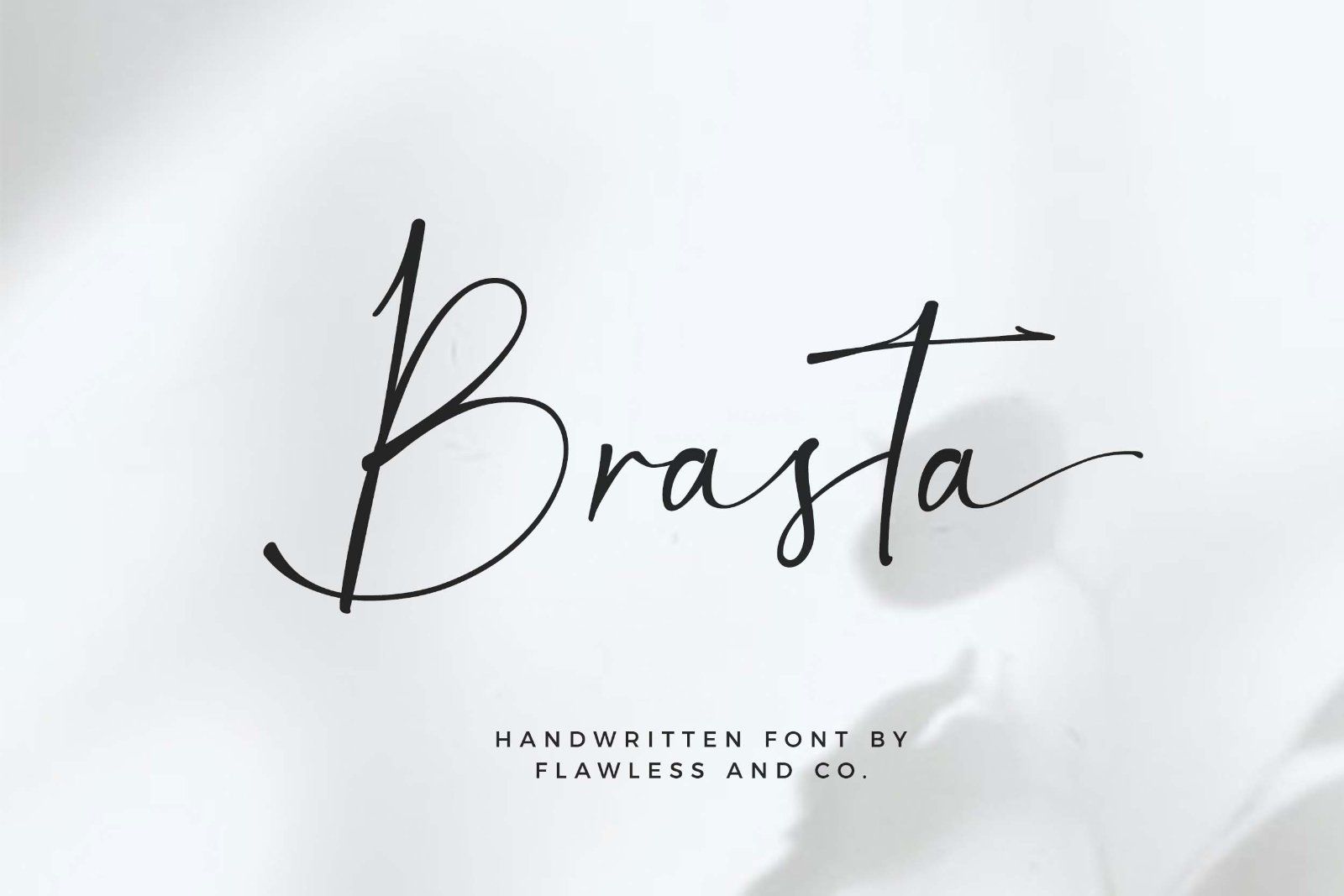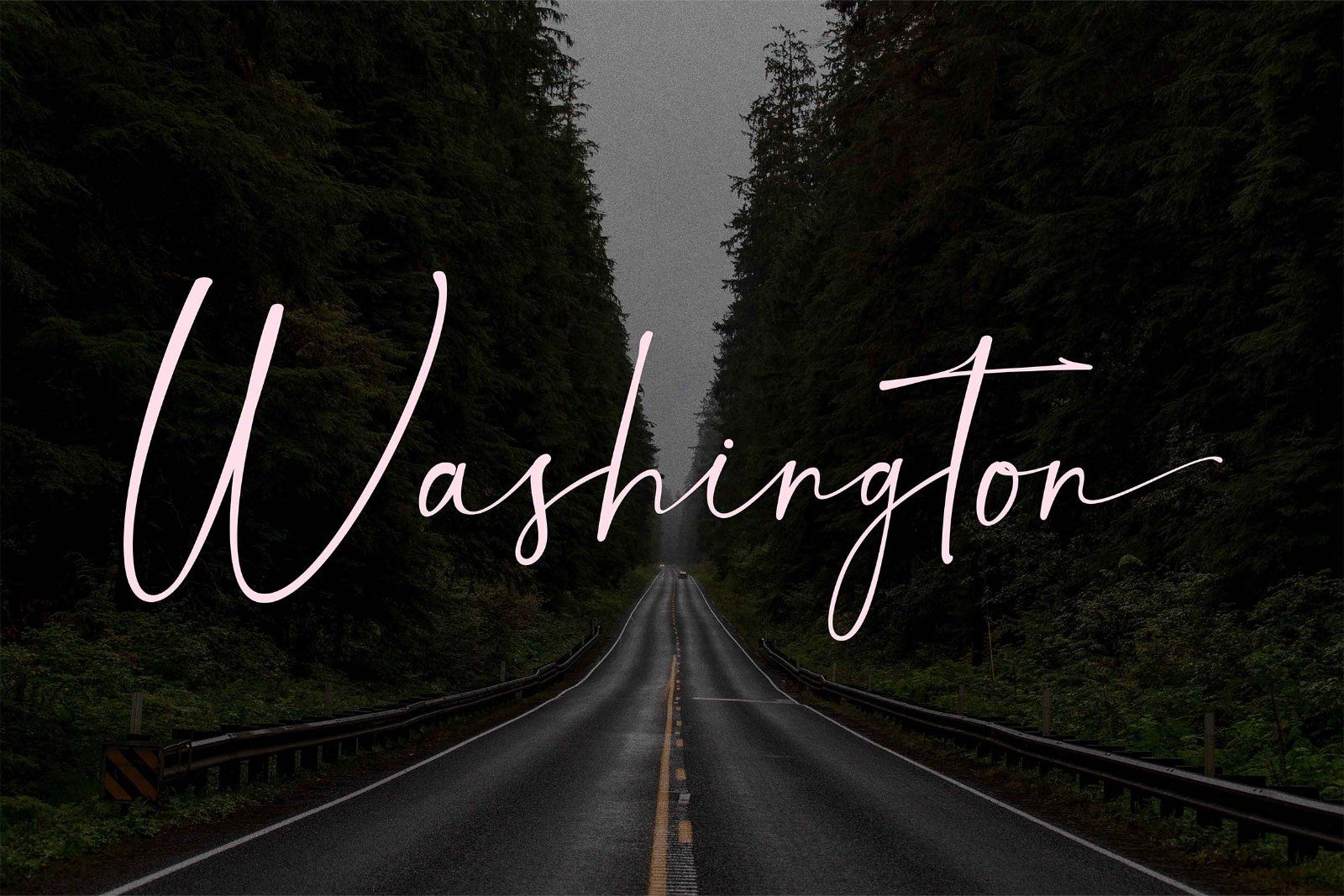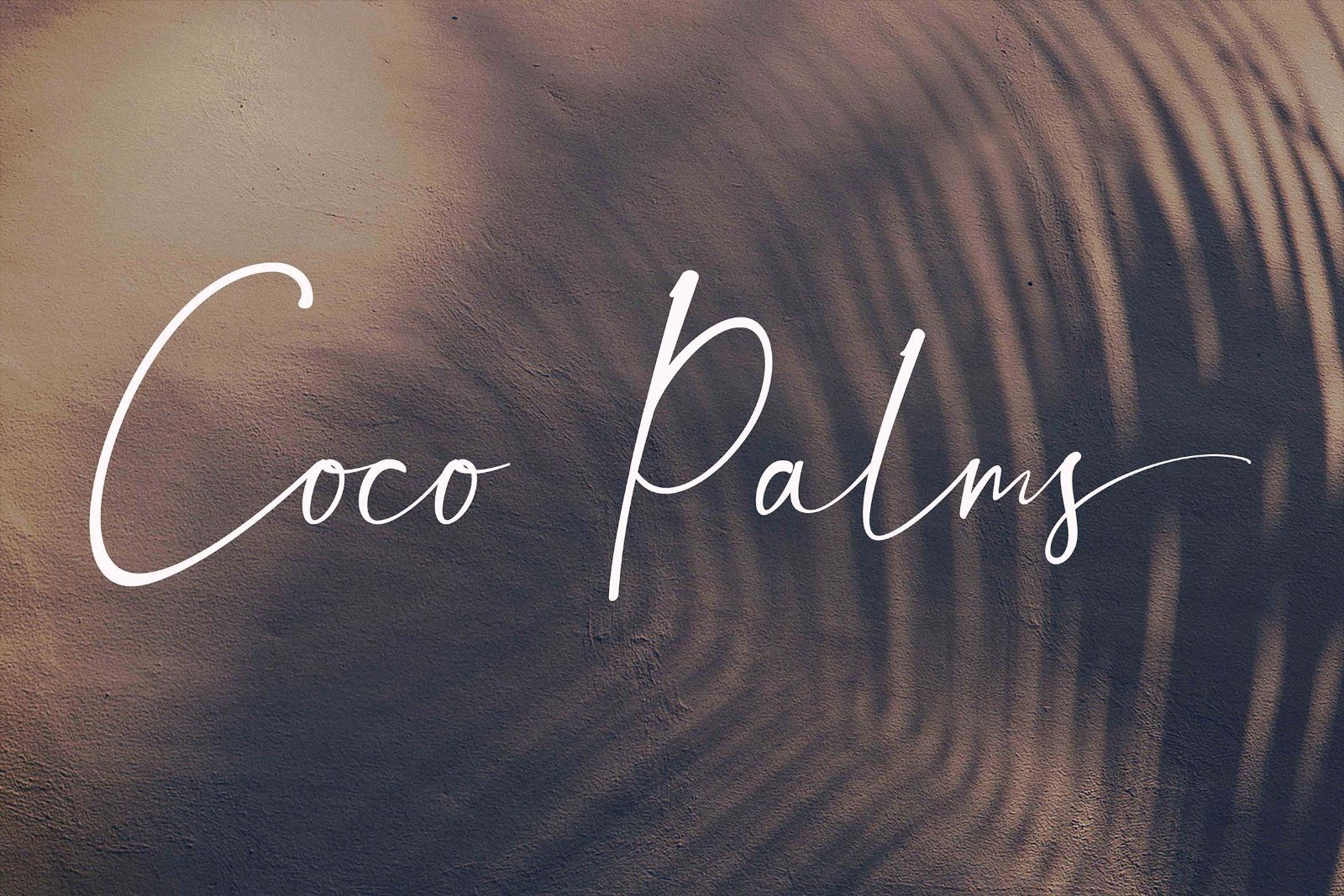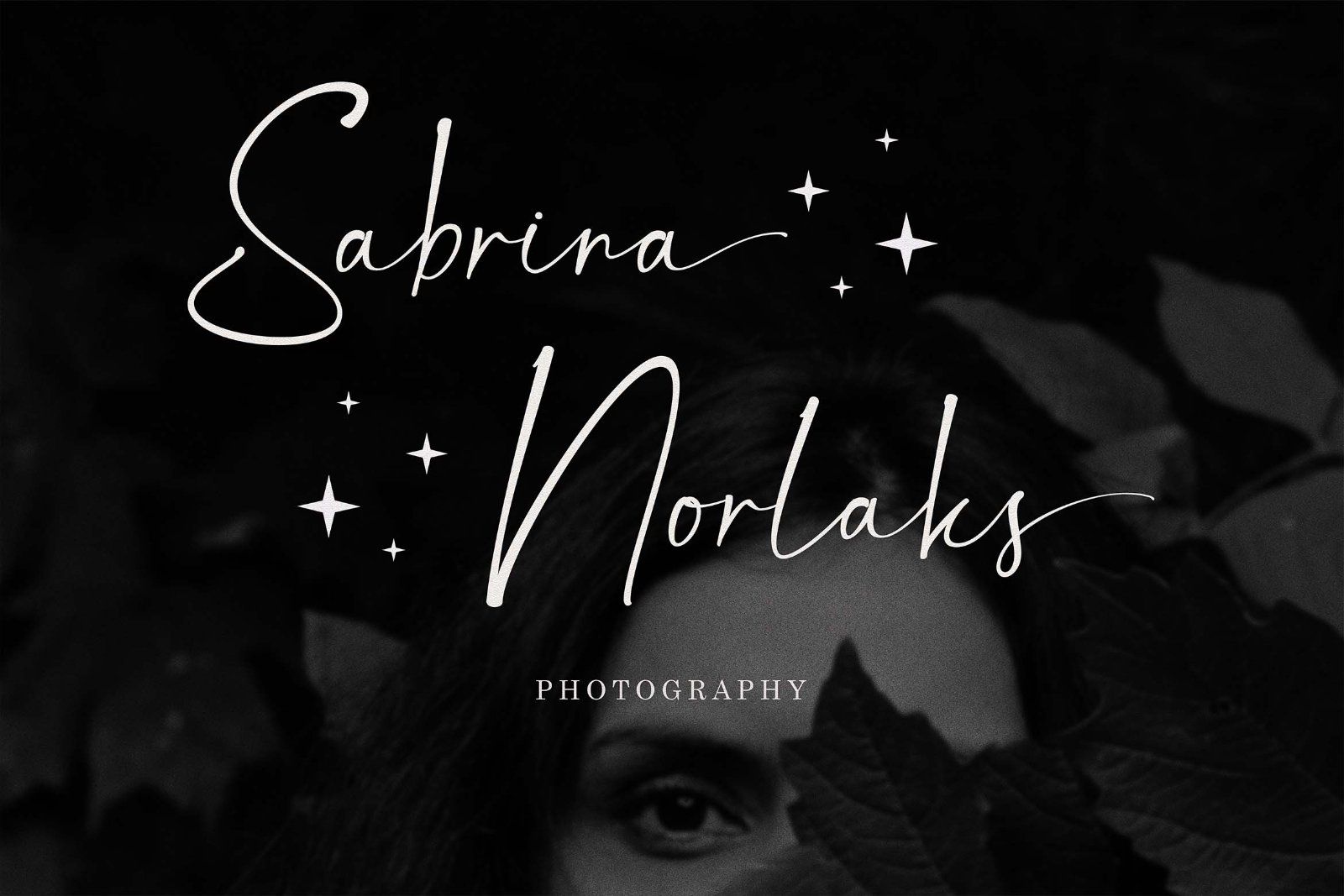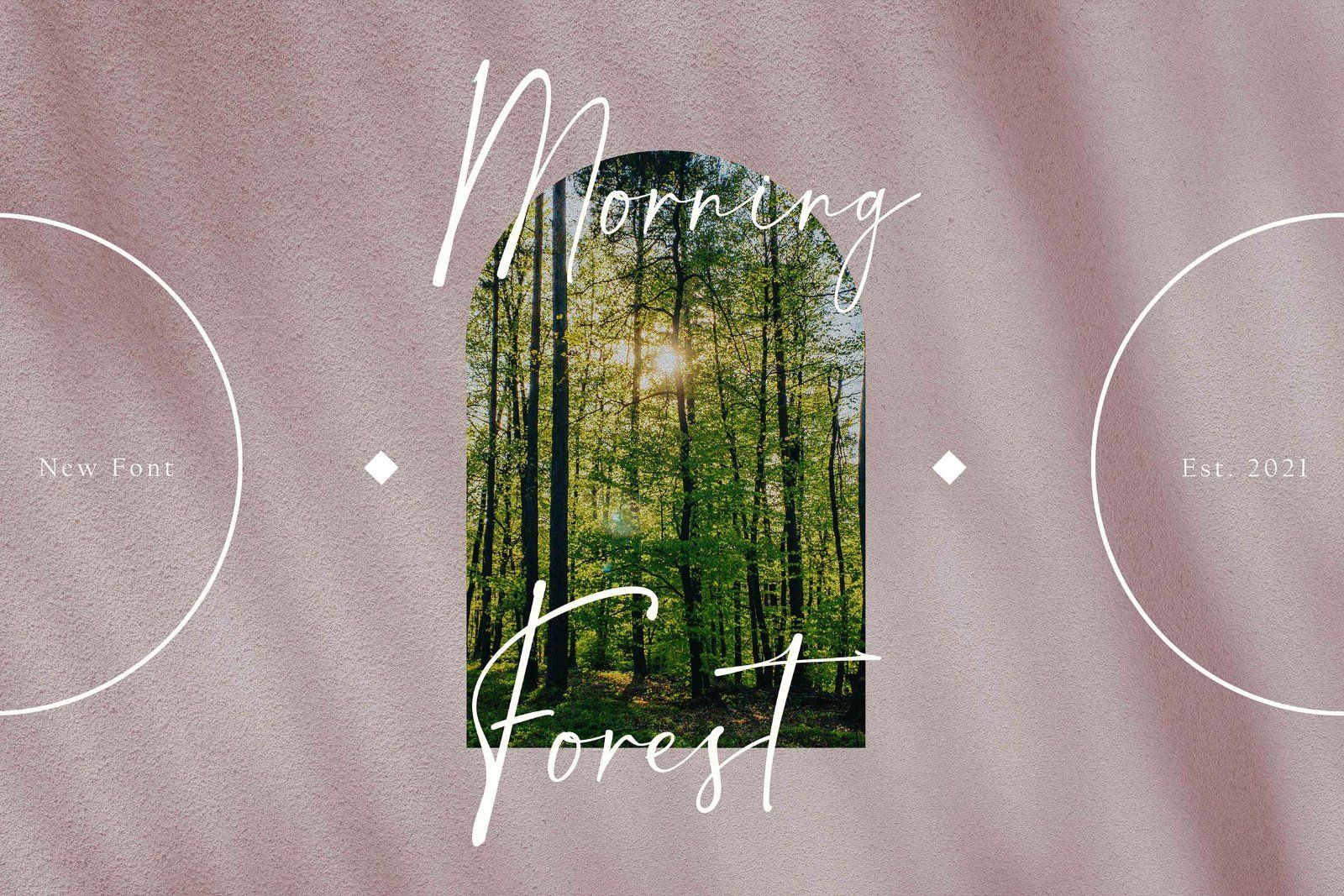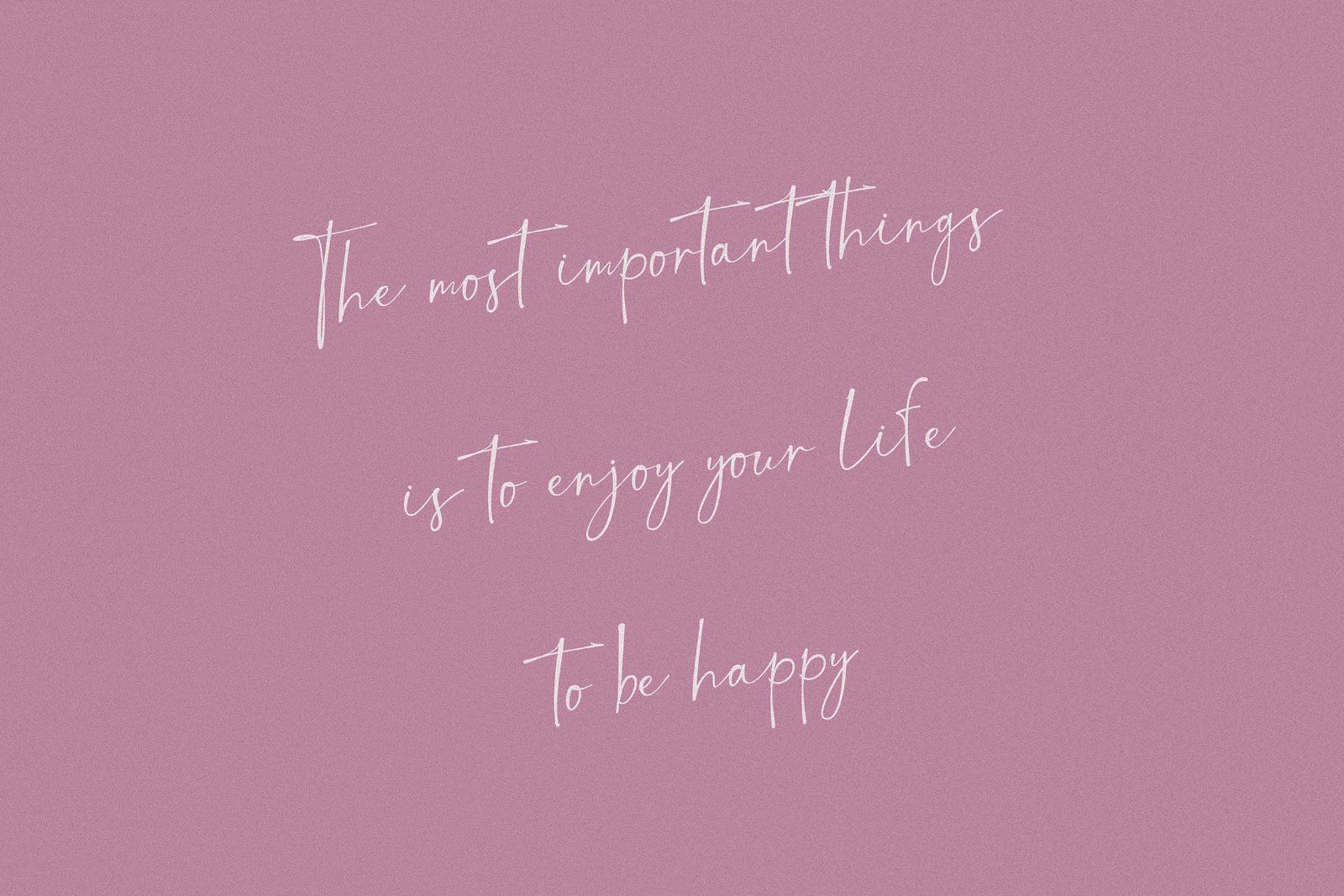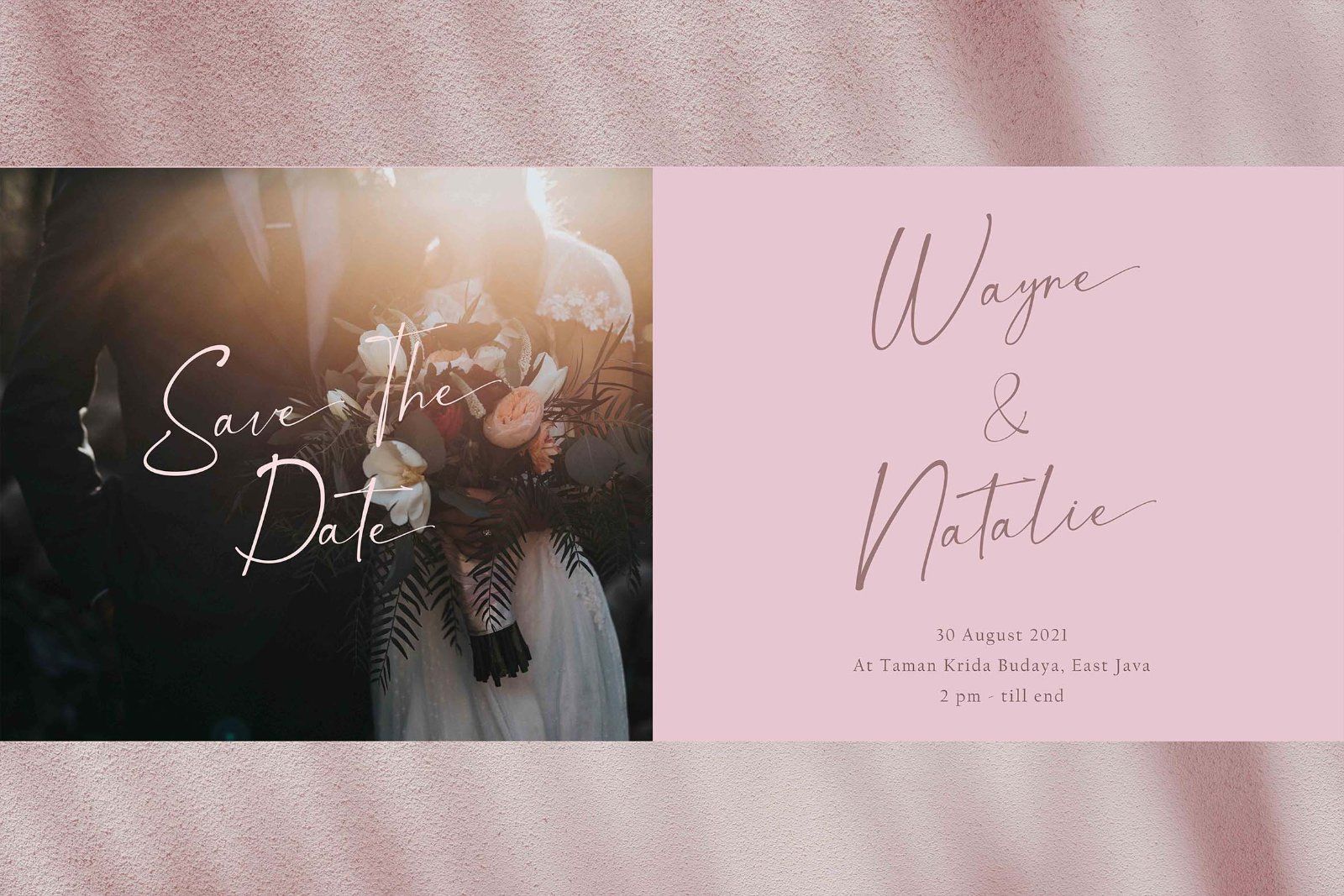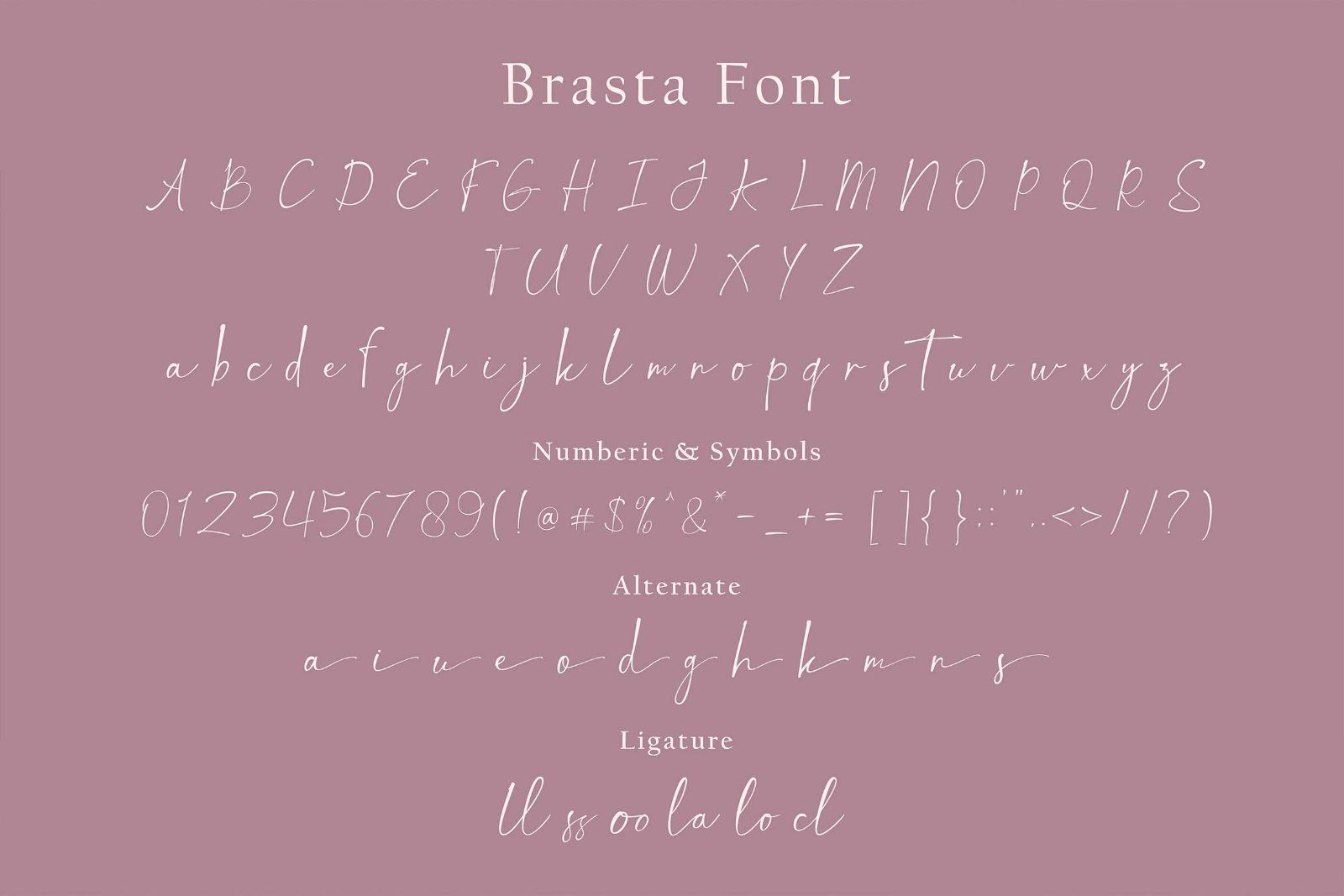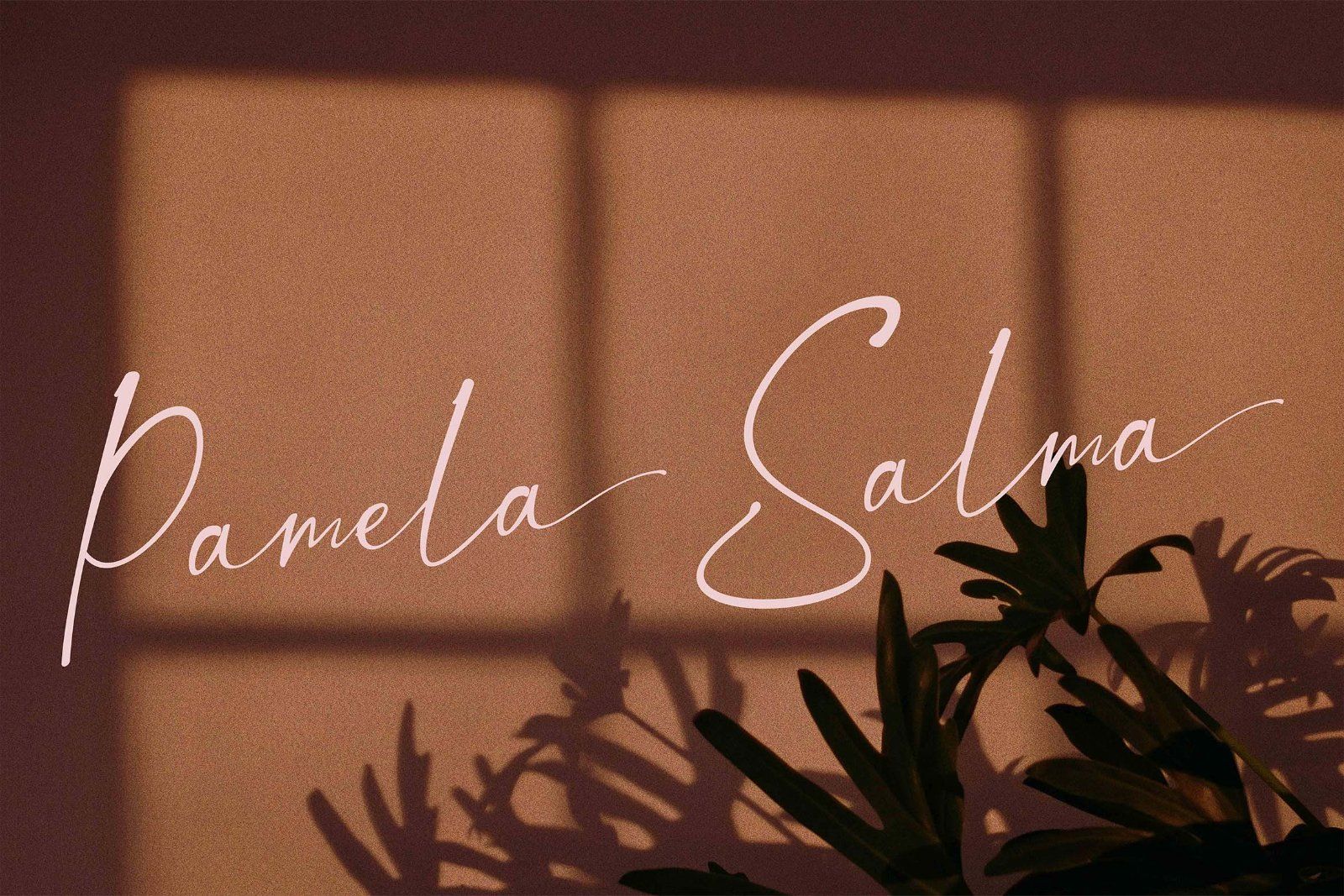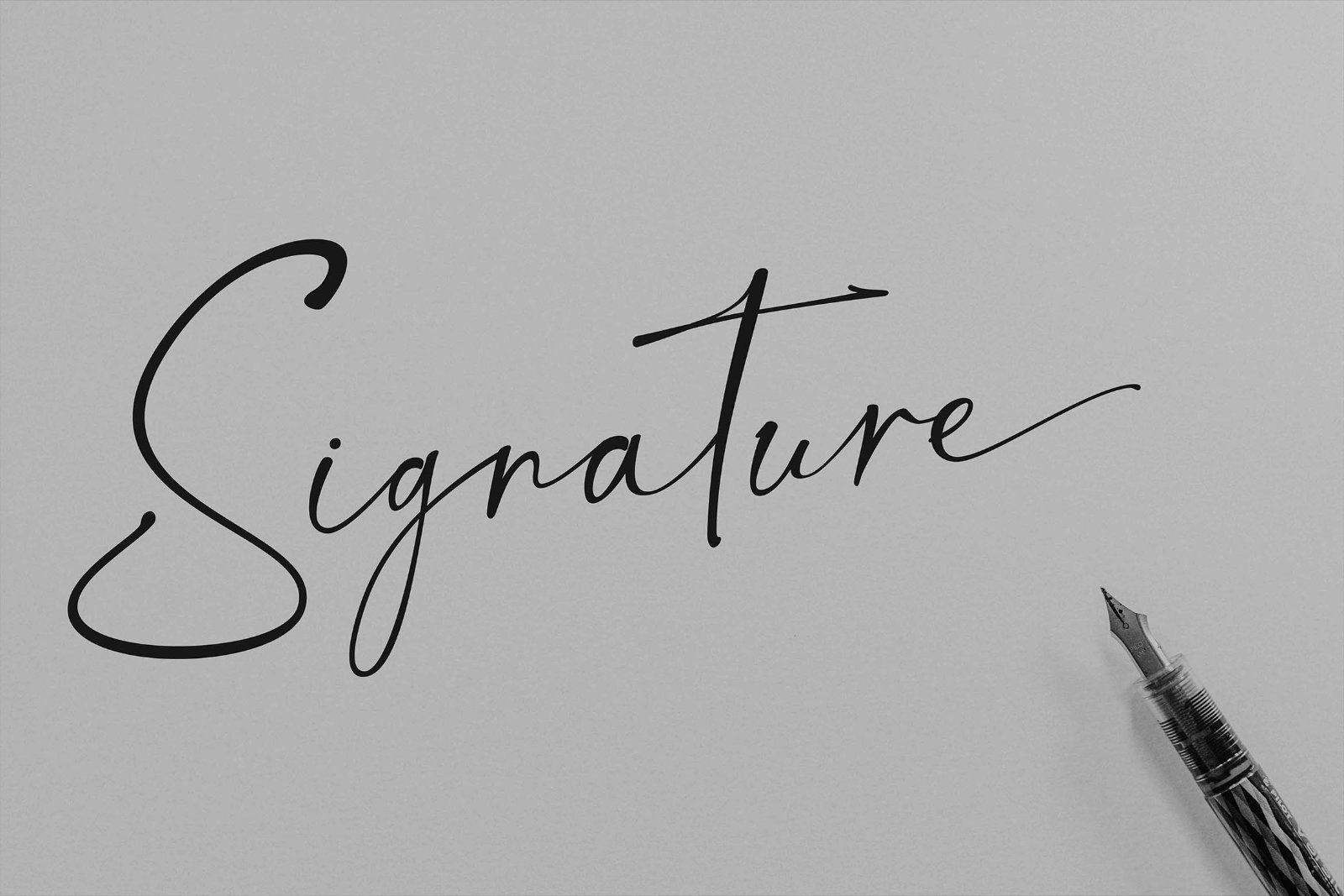
Brasta is an elegant handwritten font that combines graceful strokes with a natural and expressive signature style. Featuring flowing letterforms, delicate curves, and beautiful extended swashes, Brasta creates a sophisticated yet personal look that feels effortlessly handwritten.
• Uppercase alphabet A-Z
• Lowercase alphabet a-z
• Alternate Character
• Numbers 0-9
• Some punctuation